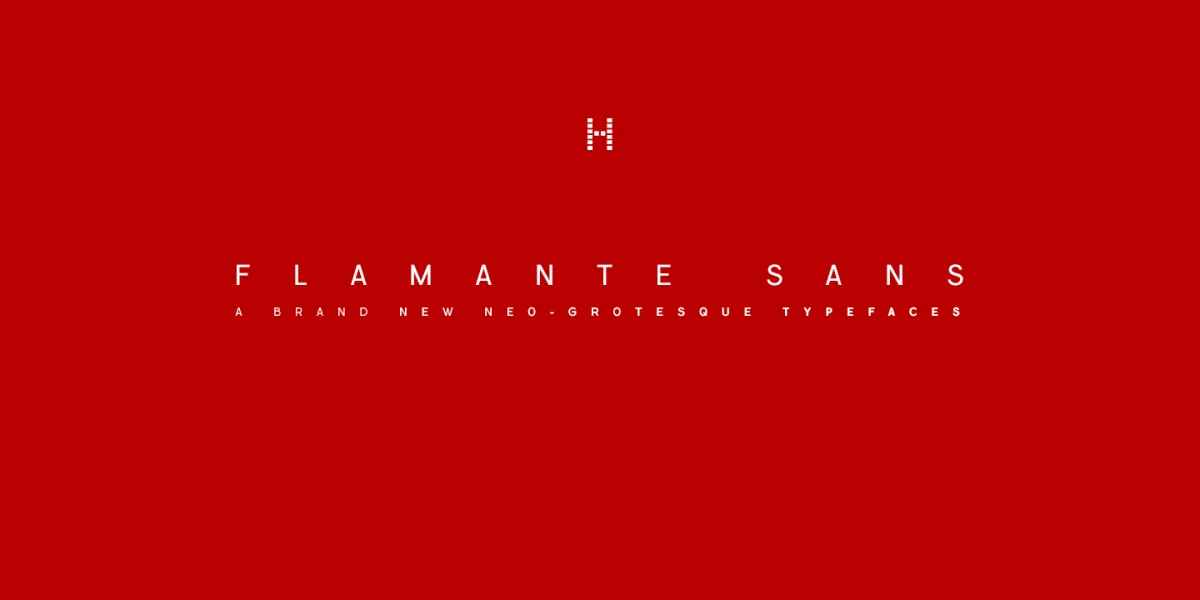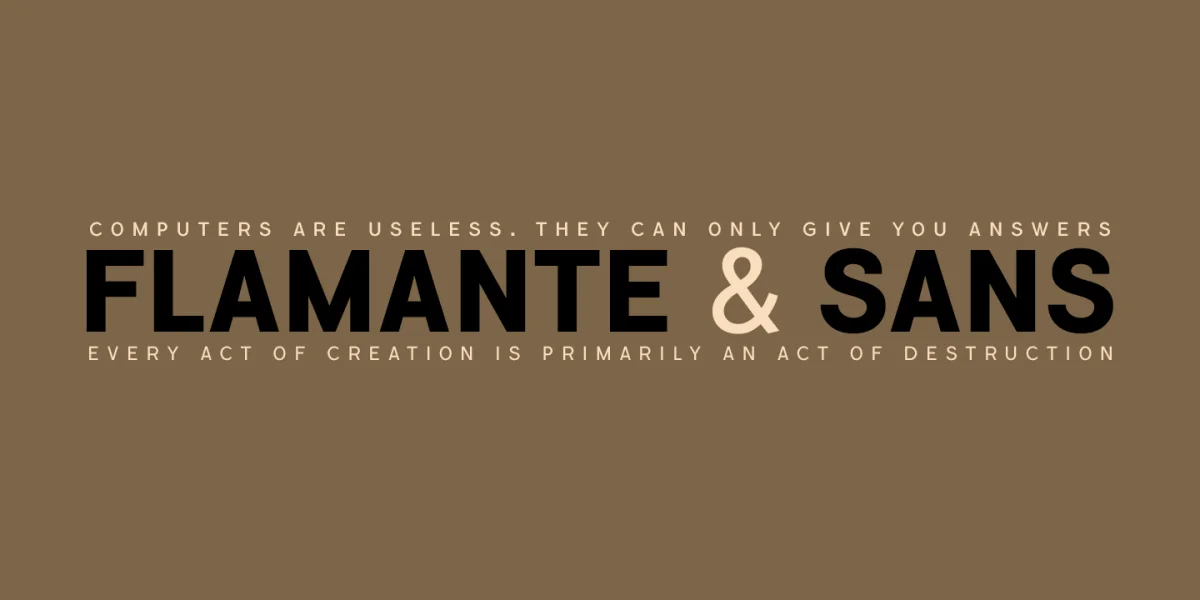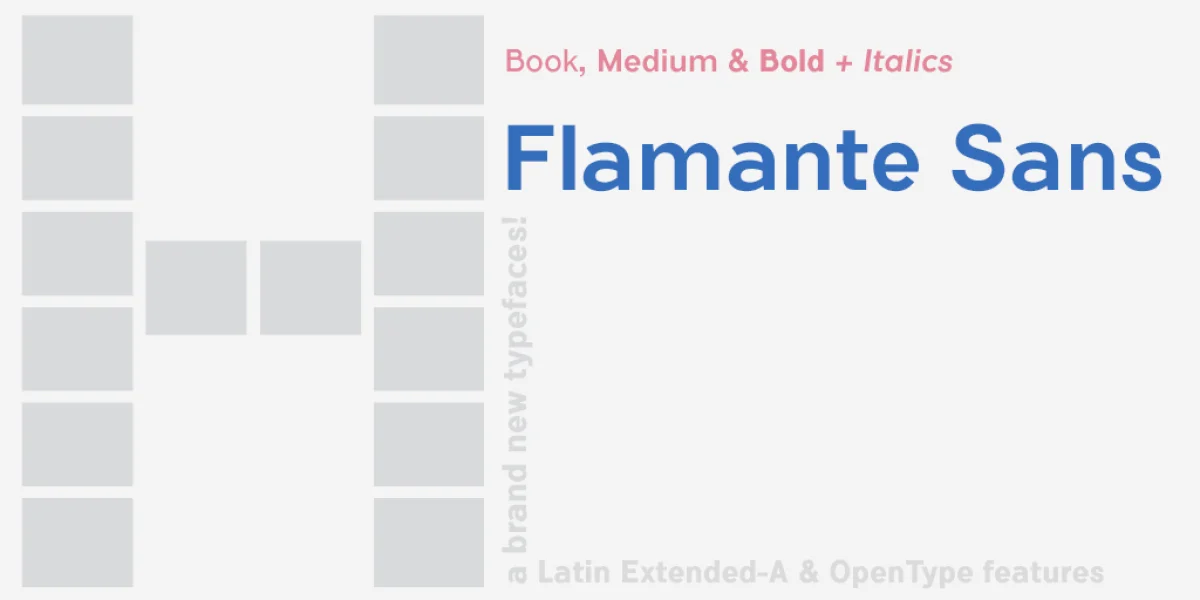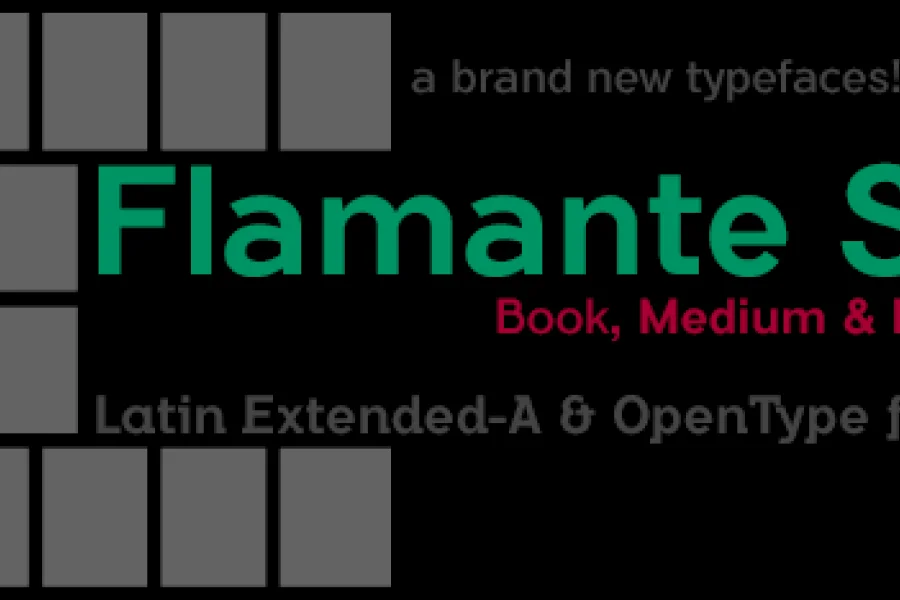
Flamante is a new family of Sans Serif typefaces with three weights: Book, Medium and Bold, plus the corresponding italic versions.
Swiss-style fonts built on a 4 × 6 building grid formed with 144 x 119 units, two digits taken from the fibonacci and Perrin sequences, these measures define the width and height of the vertical and horizontal antlers and the overall proportion of the font. The metrics and kerning have been carefully set up for fluent reading in paragraph texts.